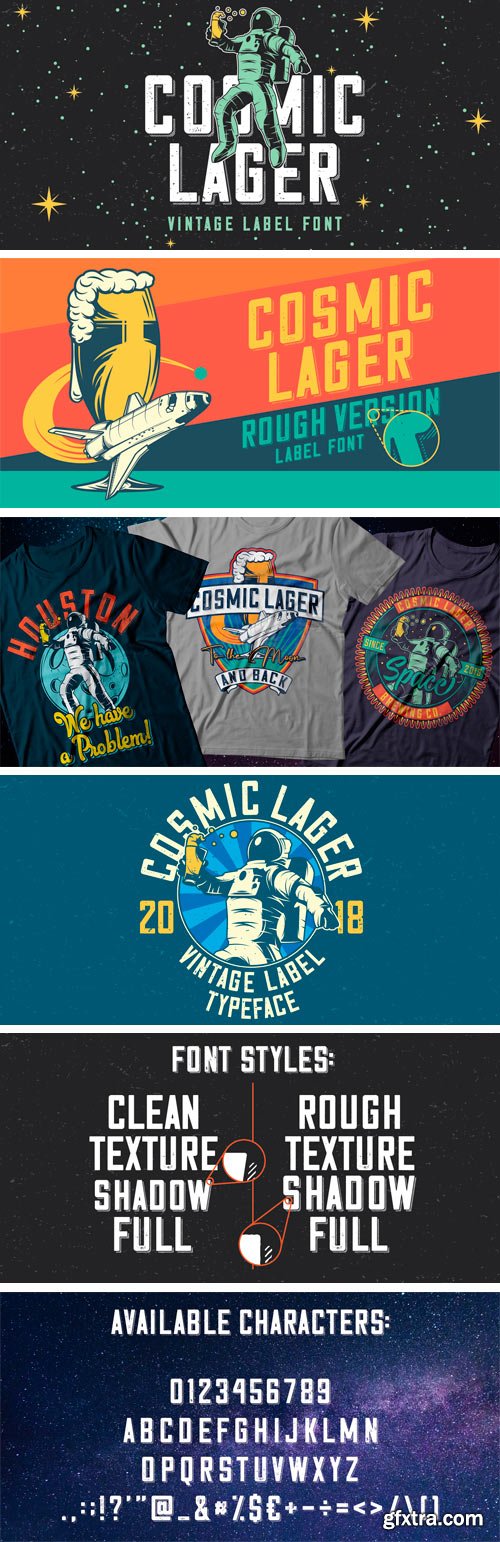
A vintage look label font named “Cosmic Lager”.Typeface includes four styles for clean version and four styles for rough version, for sample look at 4th preview. This font will good viewed on any retro design like poster, t-shirt, label, logo etc.